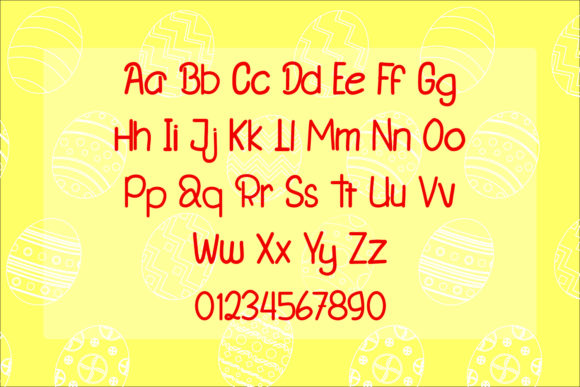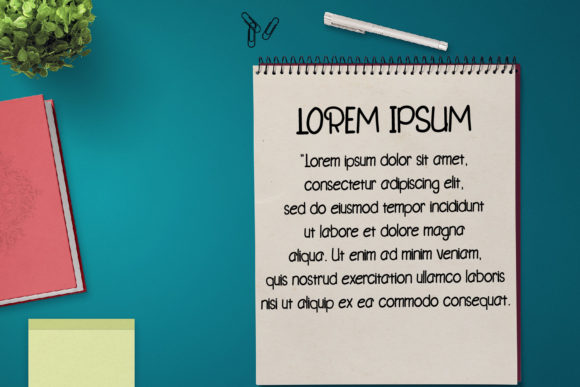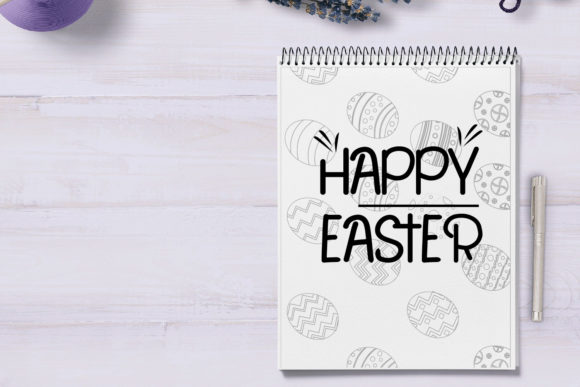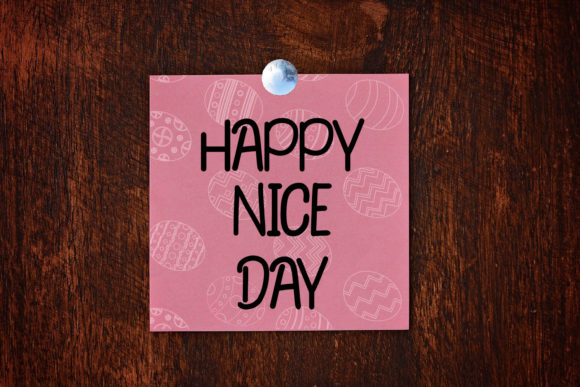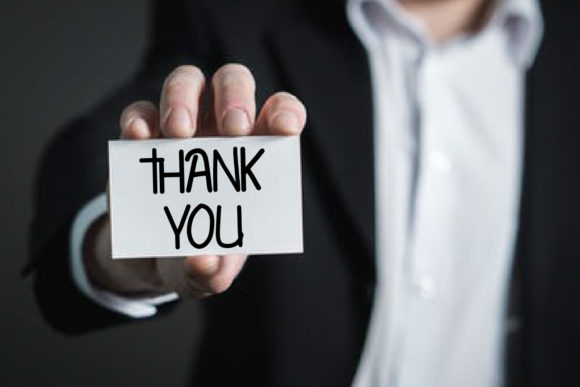
Have you ever been brainstorming ideas for a new project and suddenly, inspiration strikes? Maybe it’s a quirky idea for a children’s book, a fun logo for a friend’s business, or a set of adorable invitations for a special occasion. Whatever it is, the right font can make all the difference. For me, that font is the adorable Baby Bunny Font.
This cute and friendly handwritten font is perfect for designers who want to add a touch of whimsy to their projects. With its playful and quirky feel, Baby Bunny Font is ideal for logos, branding, posters, and crafty DIY projects. Whether you’re a seasoned pro or just starting out, this font is a valuable addition to any designer’s toolkit. With its versatility and charm, Baby Bunny Font is sure to bring a smile to your clients’ faces and make your projects stand out.
Baby Bunny Font Key Features
- Font Family: Baby Bunny Font is a unique, handwritten font designed to resemble a baby bunny’s scribbles.
- Unique Characteristics: The font features playful, hand-drawn characters with a distinctive ‘bunny’ feel, making it perfect for whimsical and child-friendly designs.
Baby Bunny Font Review
First of all, I love the whimsical and playful feel of the Baby Bunny Font. It’s perfect for projects that need a touch of innocence and charm ✨. The font’s rounded edges and soft curves make it ideal for children’s books, nursery decor, and other kid-friendly materials. The font’s friendly and approachable nature also makes it suitable for greeting cards, invitations, and other social occasions.
One of the things that stands out about the Baby Bunny Font is its versatility ✨. It comes in a range of weights, from light to bold, making it easy to use in a variety of contexts. The font also supports a range of languages, which is a big plus for designers working on international projects.
- ⚠️ The Baby Bunny Font may not be suitable for projects that require a more formal or serious tone.
- ⚠️ The font’s whimsical nature may not be to every designer’s taste.
- ⚠️ The font’s rounded edges may not be suitable for projects that require sharp, clean lines.
Overall, I think the Baby Bunny Font is a great addition to any designer’s toolkit. While it may have some limitations, its playful and friendly nature makes it perfect for a wide range of projects. With its versatility and range of weights, I can see myself using this font again and again.
For optimal results, use Baby Bunny Font in designs that require a playful, whimsical feel, such as:
- Children’s party invitations or decorations
- Infant or toddler product packaging
- Animated GIFs or short videos